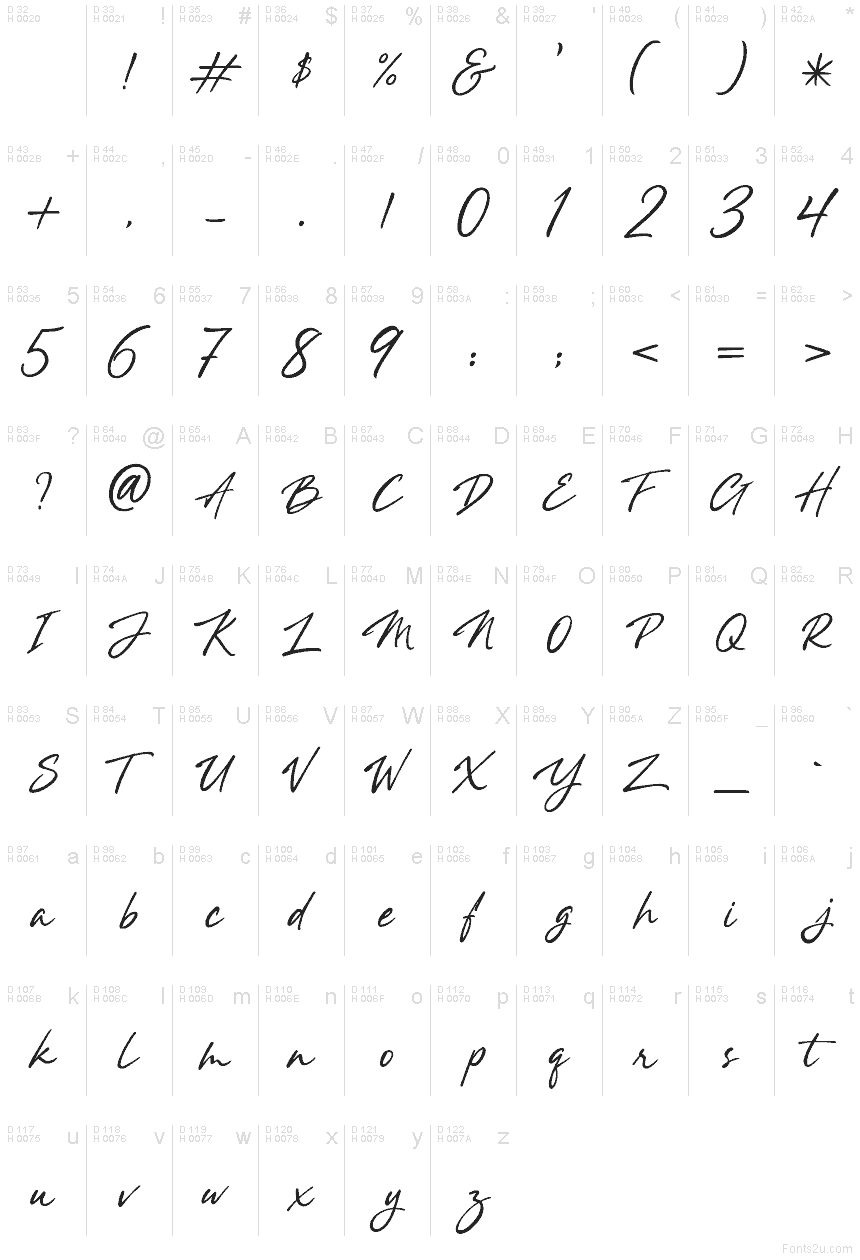
Rhythm of the Blast
Rhythm of the Blast font by BlackFridayFont FMF is a free handwritten font characterized by a modern aesthetic. The elegant design with its flowing movement and expressive character is particularly captivating, allowing it to attract attention to titles, branding creations, posters, promotions etc.
Designers can use this font in concept arts for books and movies. It can also appear in lettering and typography designs for flyers and brochures or be used to decorate invitation cards. Websites can benefit from its unusual look which can be showcased on landing pages while online courses will present an enticing platform when they display names/titles using Rhythm of the Blast.